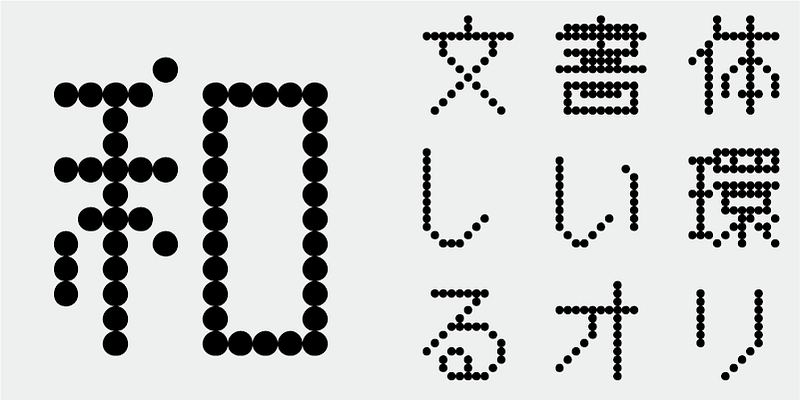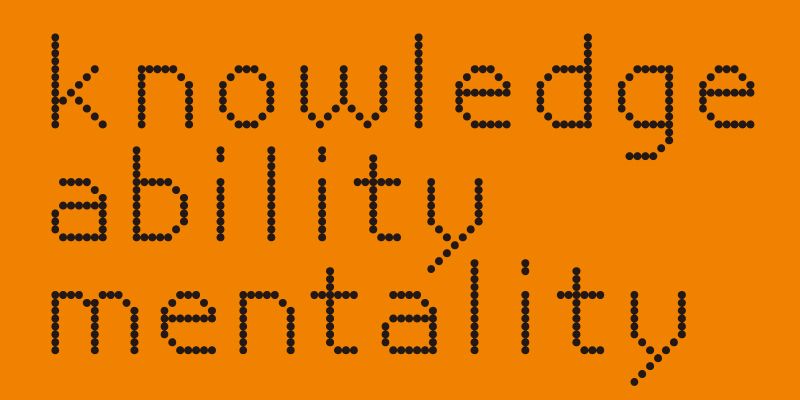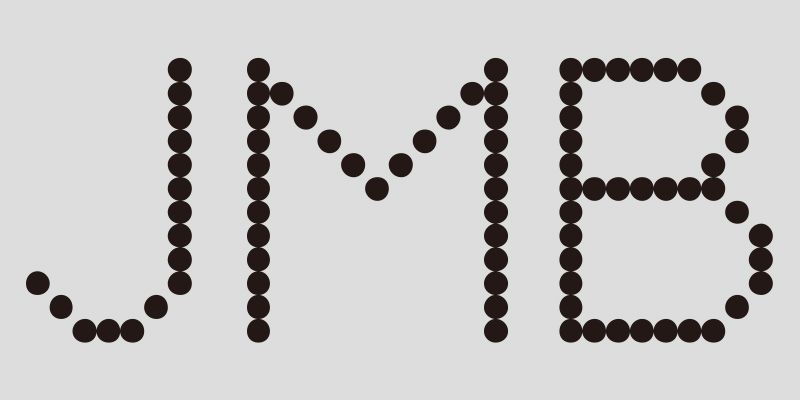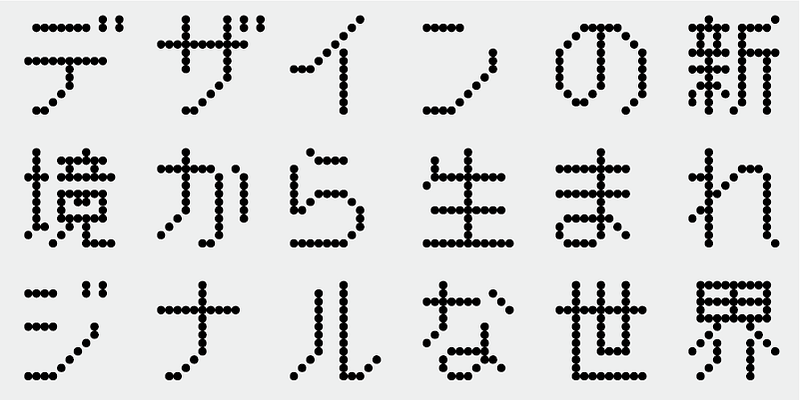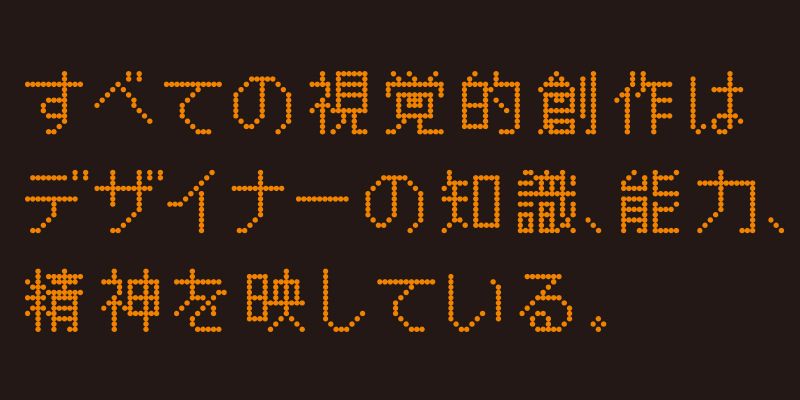
There are many attractive Western bitmap fonts as a Latin character doesn’t usually need a large number of dots (pixels). Japanese bitmap fonts tend to be practically useful, satisfying this condition. Polcadot is a challenge to create a font with Japanese and Latin characters each of which is composed of as few dots as possible. As uniform dots are the only graphic element in this design, the range of possibilities in utilizing this font for various visual designs is widely expanding.